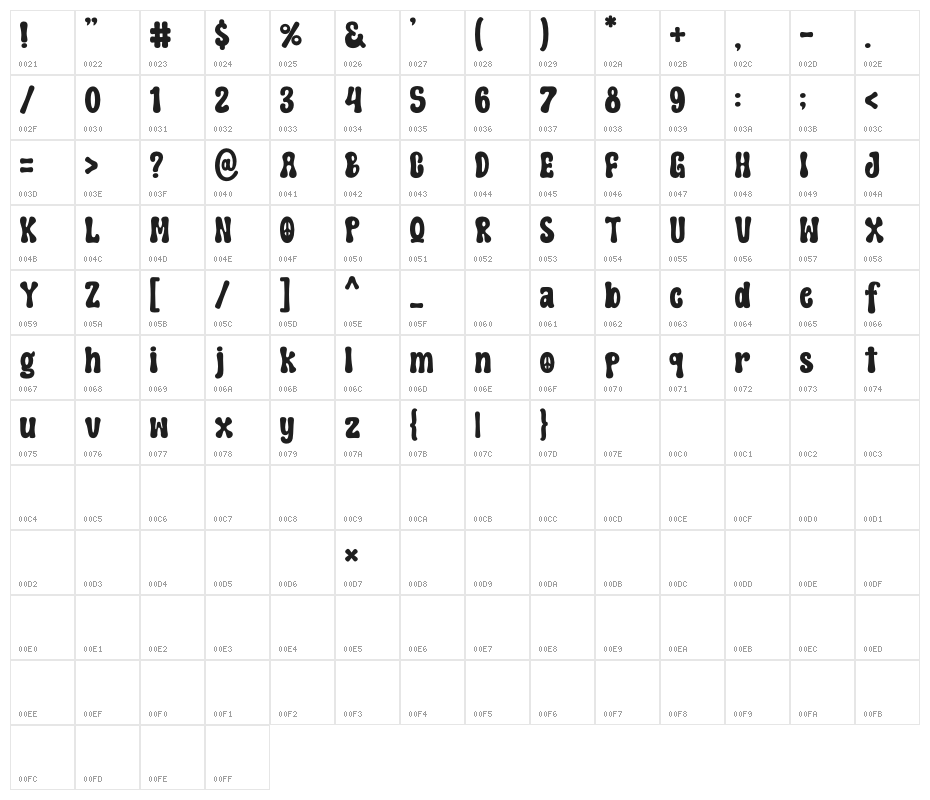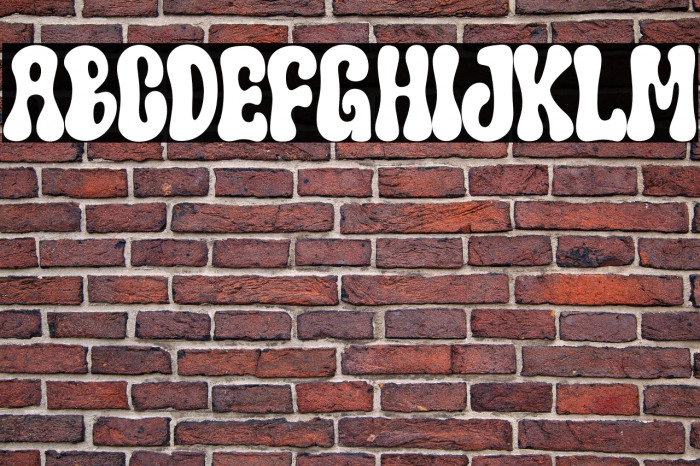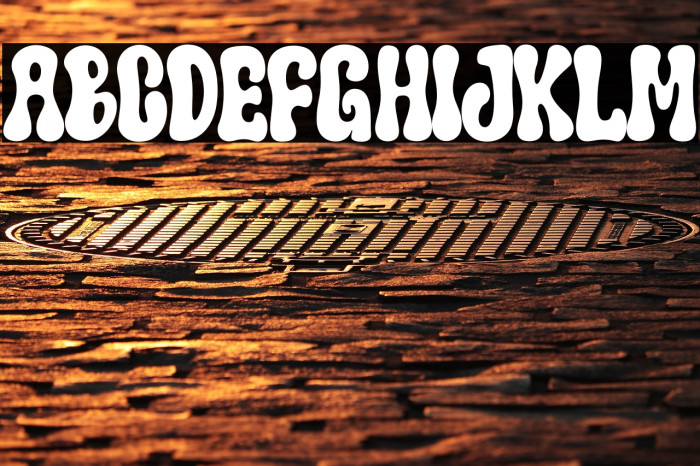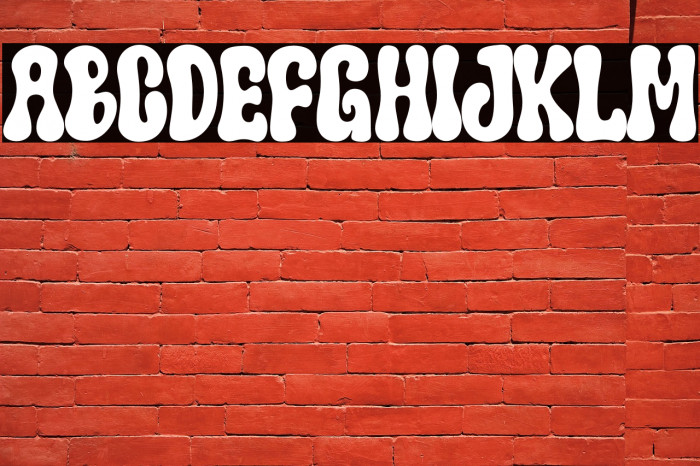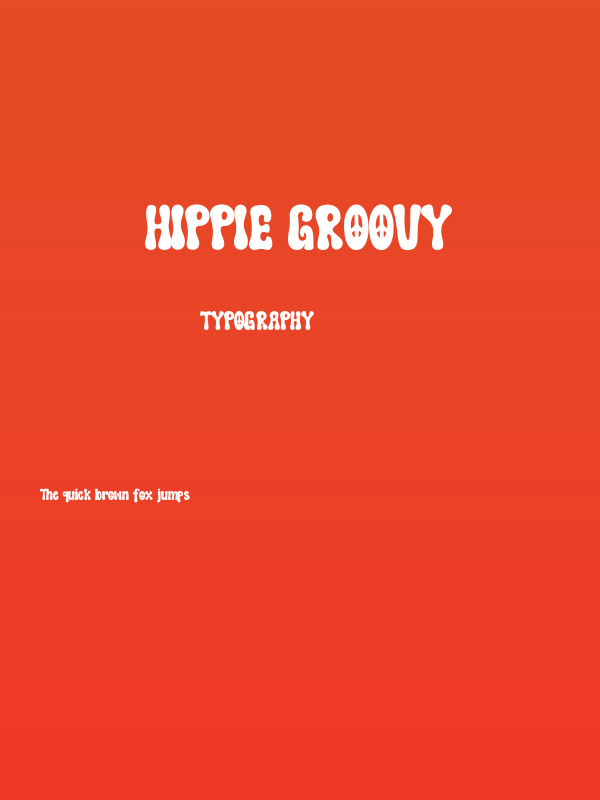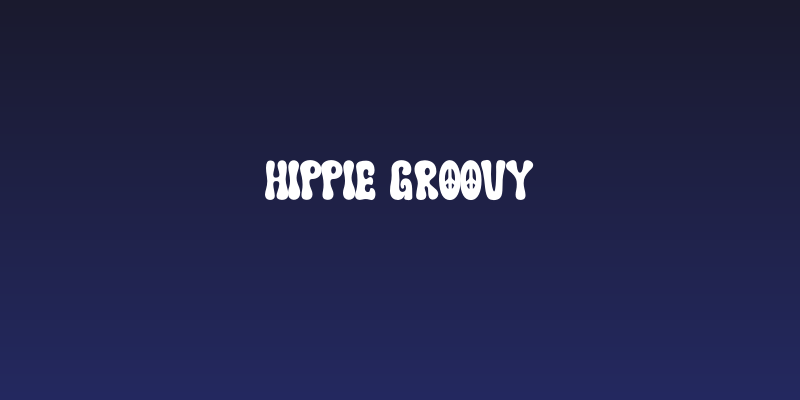
HIPPIE GROOVY Font
HIPPIE GROOVY Description
This font exudes a playful and retro vibe, reminiscent of the 1960s and 70s counterculture. The characters are bold and rounded, with a whimsical flow that captures a sense of freedom and creativity. The uppercase and lowercase letters maintain a consistent style, with some unique features such as the peace symbol incorporated into the letter 'O'. The numbers and special characters are equally expressive, adding to the overall groovy aesthetic. This font is perfect for projects that aim to evoke nostalgia or a carefree, artistic spirit.
| Proposed Projects | Ideal for music festival posters, vintage-themed branding, album covers, and creative art projects. |